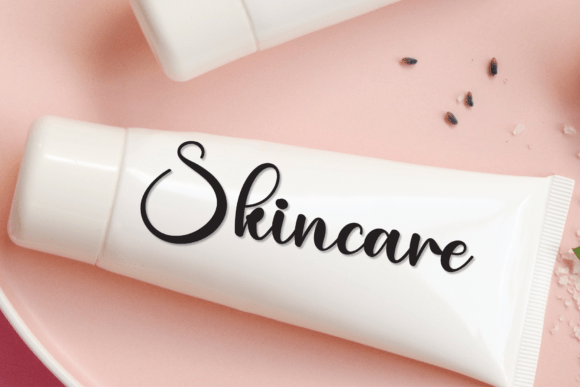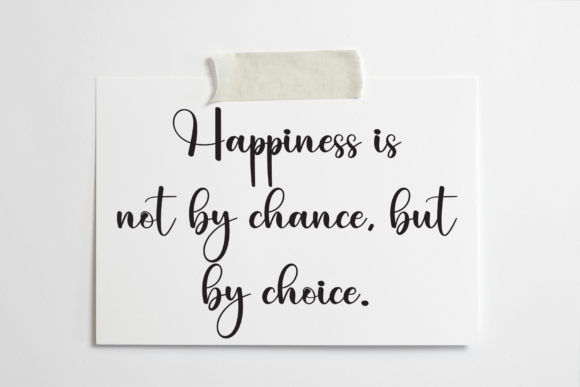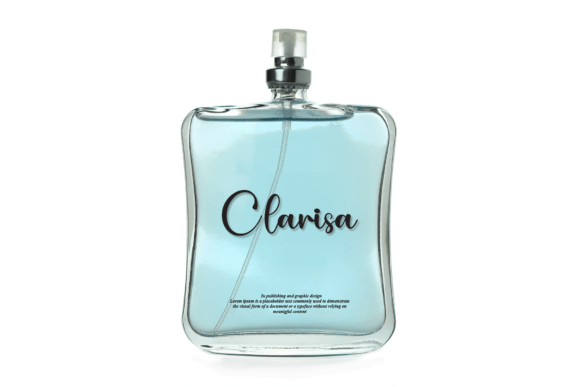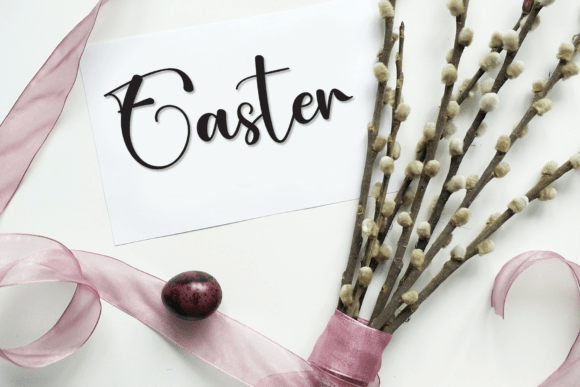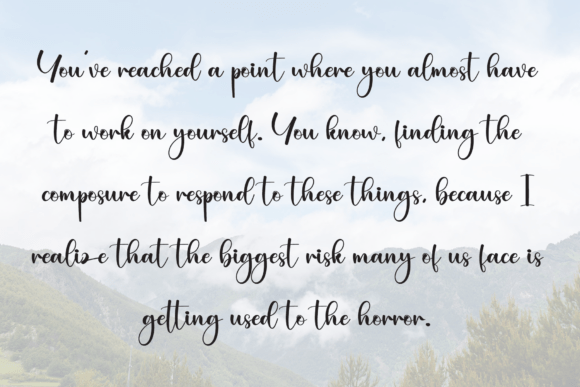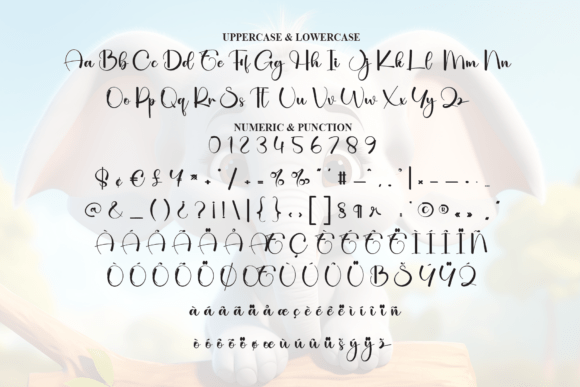
Baby Elephant: The Luxury Script Font for High-End Storytelling
In the world of typography, fonts play a crucial role in conveying the tone and personality of a brand or design. For designers and crafters looking to add a touch of luxury and whimsy to their work, the Baby Elephant font is an excellent choice. This stunning script font is designed to capture the gentle charm of a playful elephant, making it perfect for high-end storytelling.
The Unique Characteristics of Baby Elephant Font
Baby Elephant is a luxury script font that boasts bold, confident strokes contrasted against delicate, airy loops. This striking contrast creates a look that is both playful and prestigious, making it an ideal choice for designers and crafters who want to add a touch of sophistication to their work.
The font’s friendly yet refined personality makes it a standout choice for a variety of applications, including children’s luxury apparel, nursery wall art, and whimsical brand identities. Whether you’re creating a brand identity for a high-end children’s clothing line or designing a custom wall art piece for a nursery, Baby Elephant font is sure to impress.
Key Features of Baby Elephant Font
• Bold and Confident Strokes: The font features bold, confident strokes that give it a sense of luxury and sophistication.
• Delicate and Airy Loops: The delicate and airy loops add a touch of playfulness and whimsy to the font.
• Friendly yet Refined Personality: The font’s friendly yet refined personality makes it perfect for high-end storytelling and luxury branding.
• Versatile: The font is versatile and can be used for a variety of applications, including children’s luxury apparel, nursery wall art, and whimsical brand identities.
Applications of Baby Elephant Font
Baby Elephant font is perfect for designers and crafters who want to add a touch of luxury and whimsy to their work. Here are some of the applications where this font truly shines:
• Children’s Luxury Apparel: The font’s playful and sophisticated personality makes it perfect for high-end children’s clothing lines.
• Nursery Wall Art: The font’s whimsical and luxurious feel makes it ideal for custom wall art pieces for nurseries.
• Whimsical Brand Identities: The font’s unique blend of playfulness and sophistication makes it perfect for brands that want to stand out from the crowd.
Why Choose Baby Elephant Font?
There are many fonts available in the market, but Baby Elephant font stands out from the rest due to its unique characteristics and versatility. Here are some reasons why designers and crafters should choose Baby Elephant font:
• Unique and Eye-Catching: The font’s bold and confident strokes, contrasted against delicate and airy loops, make it a unique and eye-catching choice.
• High-End Storytelling: The font’s luxurious and sophisticated personality makes it perfect for high-end storytelling and branding.
• Easy to Read: Despite its bold and playful personality, the font is easy to read, making it perfect for body text and headlines.
In conclusion, Baby Elephant font is a luxury script font that is perfect for designers and crafters who want to add a touch of whimsy and sophistication to their work. Its unique characteristics, versatility, and high-end personality make it a standout choice for children’s luxury apparel, nursery wall art, and whimsical brand identities. Whether you’re a designer or crafter, Baby Elephant font is sure to impress and help you create stunning designs that tell a story.